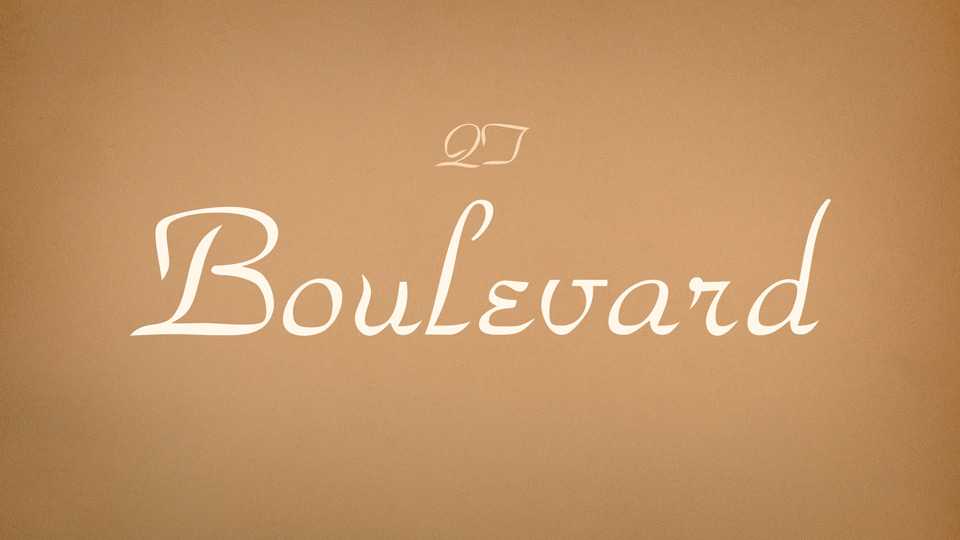
Download Boulevard font, a lighthearted script based on Park Avenue typeface designed by Robert Smith in 1933 for American Type Founders. This unique design has small x-height lowercase letters with very long ribbon-like ascenders.